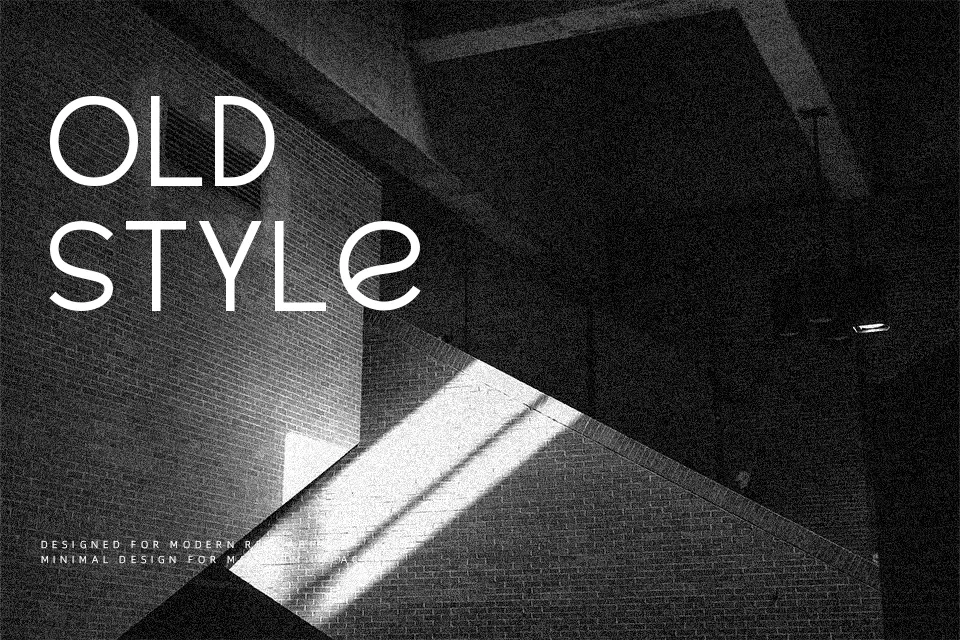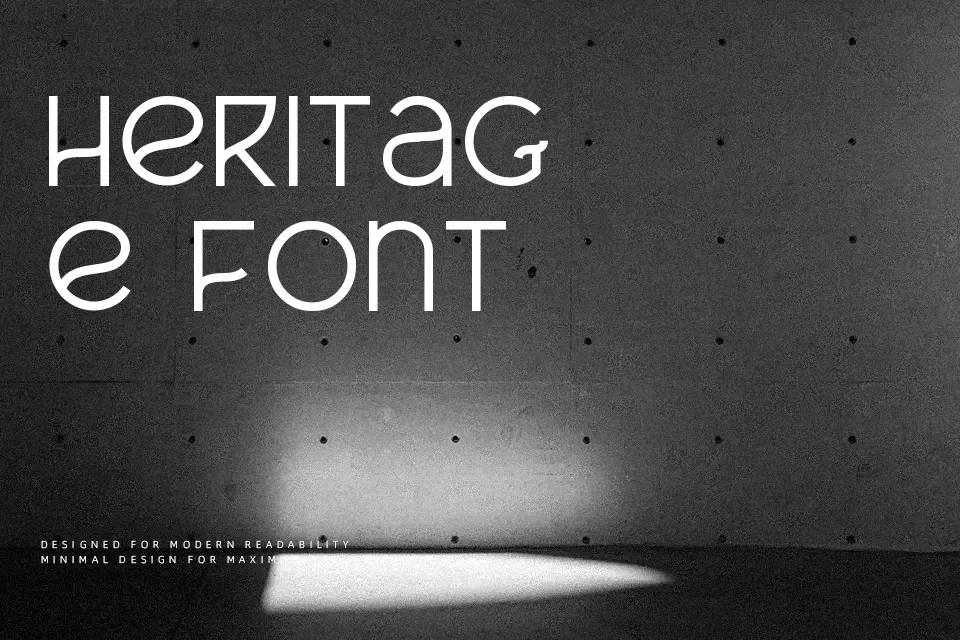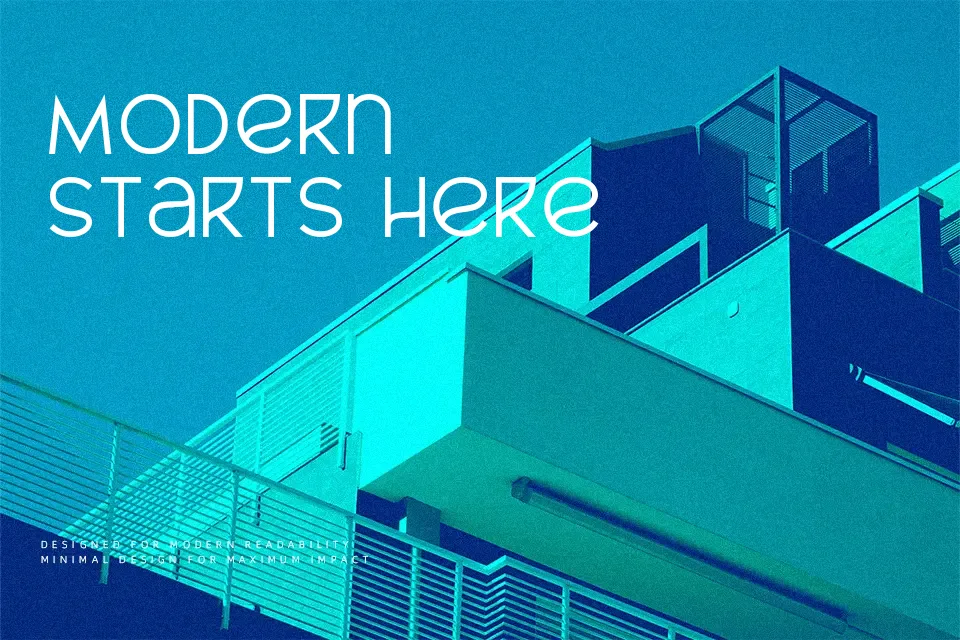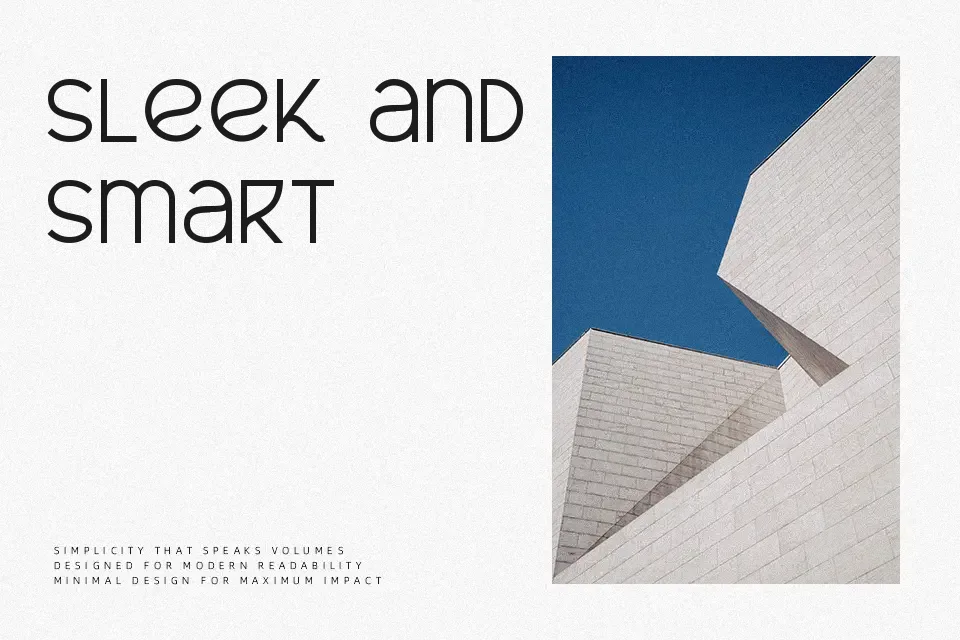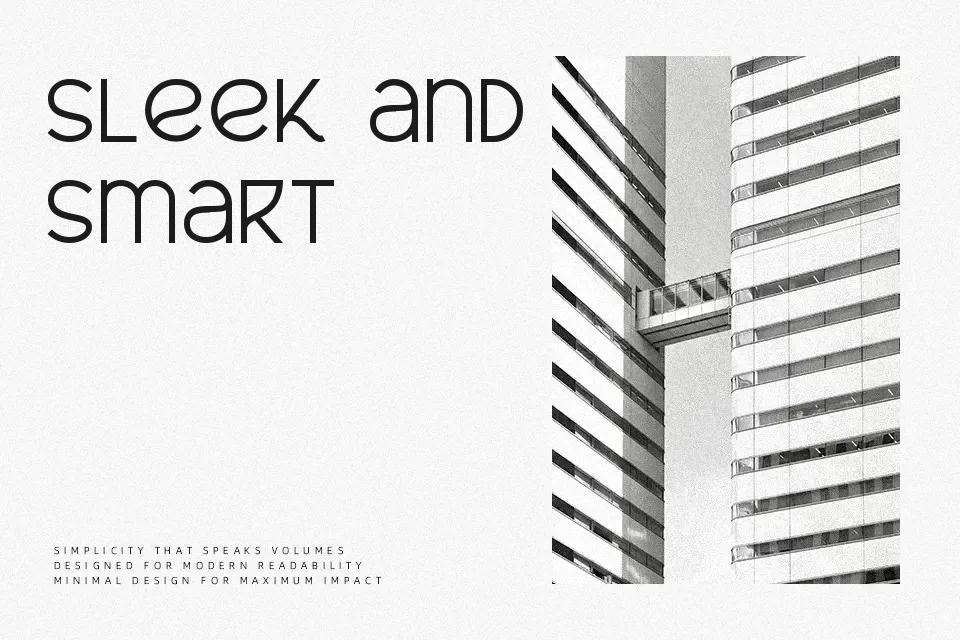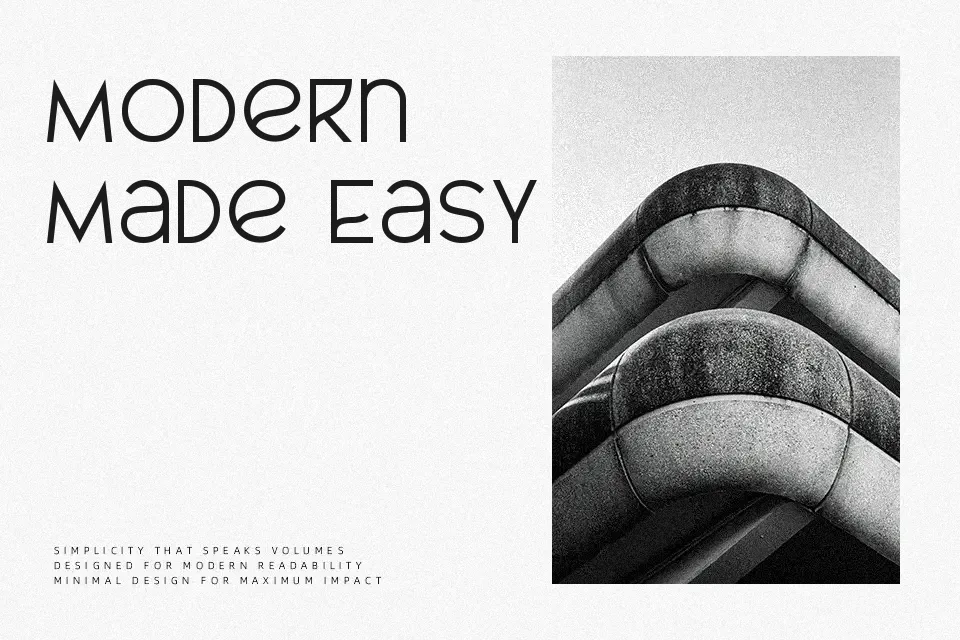
Al Chevrola Font
Al Chevrola carries an assertive character — its semi-expanded width, near-monoline strokes, and geometric construction give it a clean yet edgy presence that reads confidently at large sizes. The sharp-meets-rounded structure creates an unusual tension: it feels controlled but not stiff. This works well for streetwear headers, gaming event titles, or brand marks that need attitude without descending into chaos. That said, the display-oriented build means it struggles badly at small sizes and becomes nearly illegible in body text contexts. Designers who need a versatile workhorse for editorial paragraphs should look elsewhere — this font performs at its peak only when given room to breathe.
Best For:- Streetwear brand headers and labels
– Music event posters and festival titles
– Gaming team or esports visual identity
– Social media graphics with bold headline treatment
Not Ideal For:- Long-form body text or editorial paragraphs
– Corporate reports or formal documents
– Small-size UI labels or captions
– Wedding or romance-themed stationery